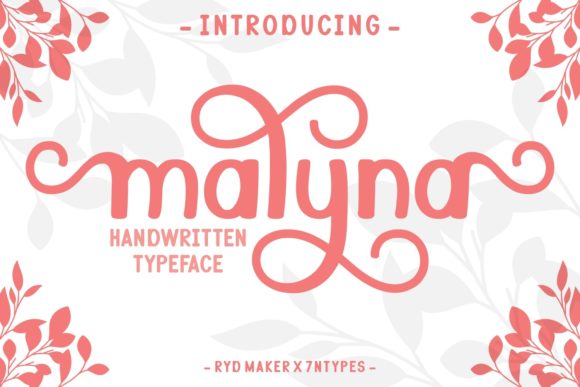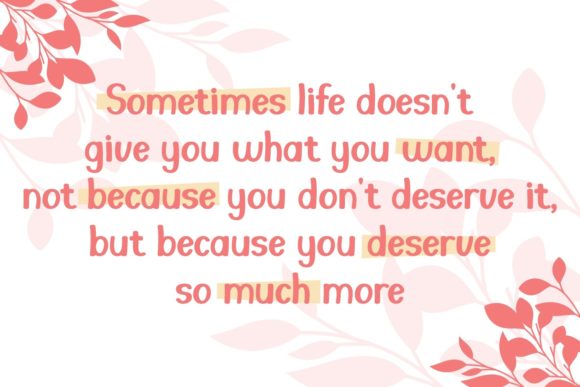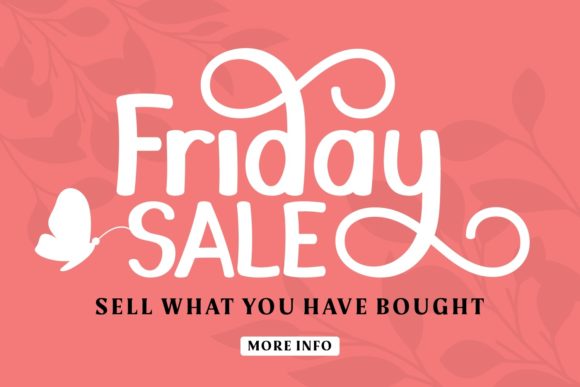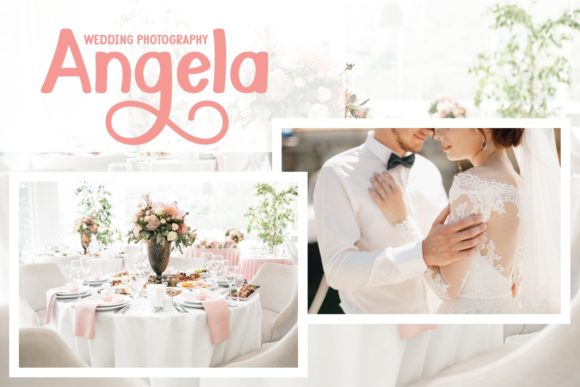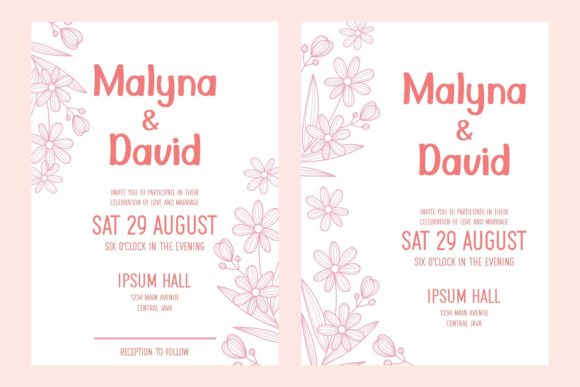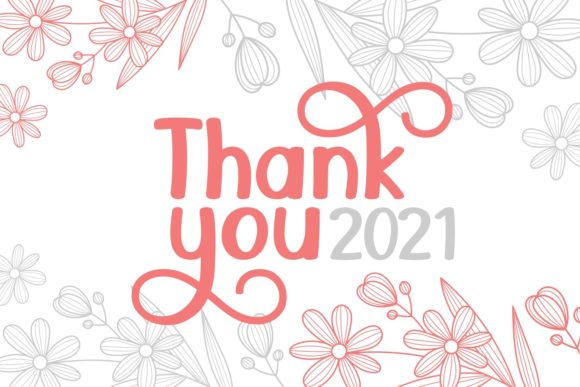
About Malyna Font
Malyna is a chic and exquisite script font that exudes elegance and class. This font was particularly crafted for those who need a beautiful and refreshing look to their designs.